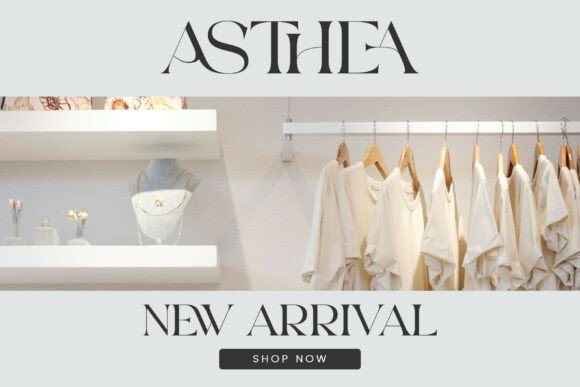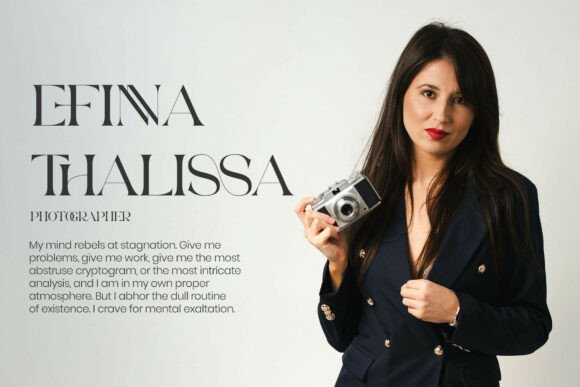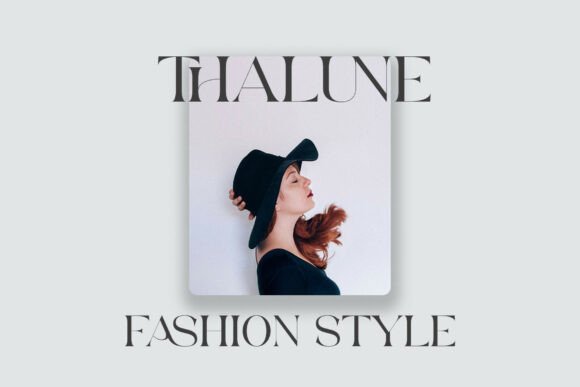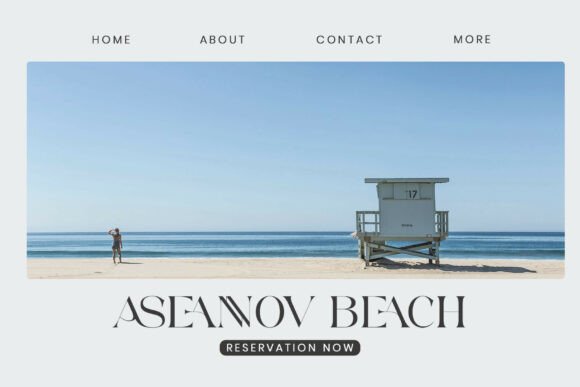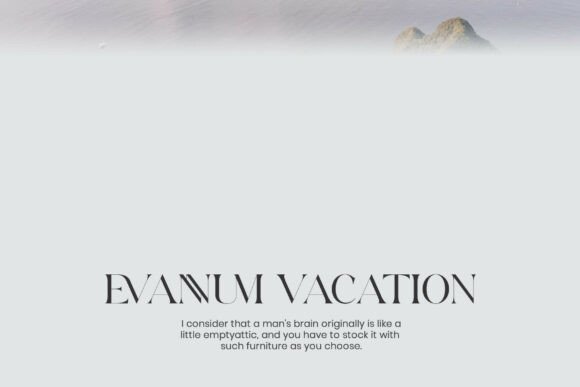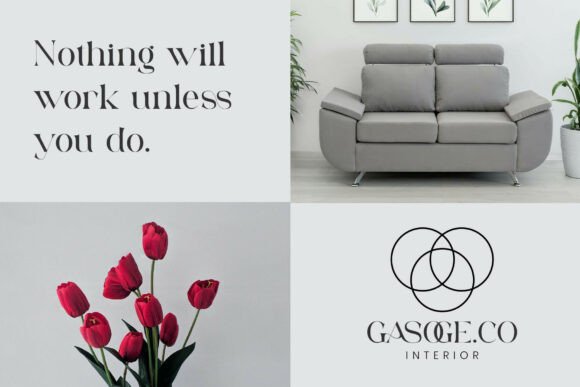
Introducing Gasley Font: The Ultimate Stylish Ligature Typeface for Designers
Are you tired of using the same old fonts for your design projects? Look no further! Gasley Font is here to revolutionize your typography game. Inspired by the famous minimalist logo, Gasley is a stylish ligature typeface that is perfect for designing templates, brochures, videos, advertising branding, logos, and more.
What Makes Gasley Font So Special?
Gasley Font is not just another font, it’s a game-changer. With its clean and minimalist design, it’s sure to elevate your designs to the next level. Here are some of the key features that make Gasley Font stand out:
- Standard Glyphs: The font includes a wide range of standard glyphs, ensuring that you have all the characters you need to create stunning designs.
- Ligatures: Gasley Font features beautiful ligatures that will take your typography to the next level. Ligatures are special characters that combine two or more letters into a single glyph, creating a more elegant and refined look.
- International Accent: The font includes international accents, making it perfect for designing multilingual projects.
Gasley Font includes PUA (Private Use Area) encoded characters, which means that you can access all the glyphs and ligatures without needing additional design software. The font also includes multilingual support, making it perfect for designing projects for a global audience.
Gasley Font is the perfect addition to any designer’s toolkit. With its stylish ligatures, clean design, and wide range of compatibility, it’s sure to become your go-to font for all your design projects. Whether you’re designing templates, brochures, videos, or logos, Gasley Font has got you covered. So why wait? Get Gasley Font today and take your typography to the next level!